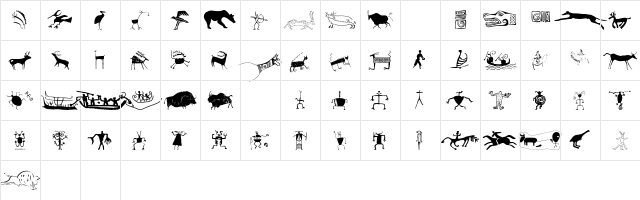
CavePaintings Regular
Design Context for CavePaintings Typeface
CavePaintings is a composed and adaptable typeface that performs quietly and consistently across a wide range of design contexts.